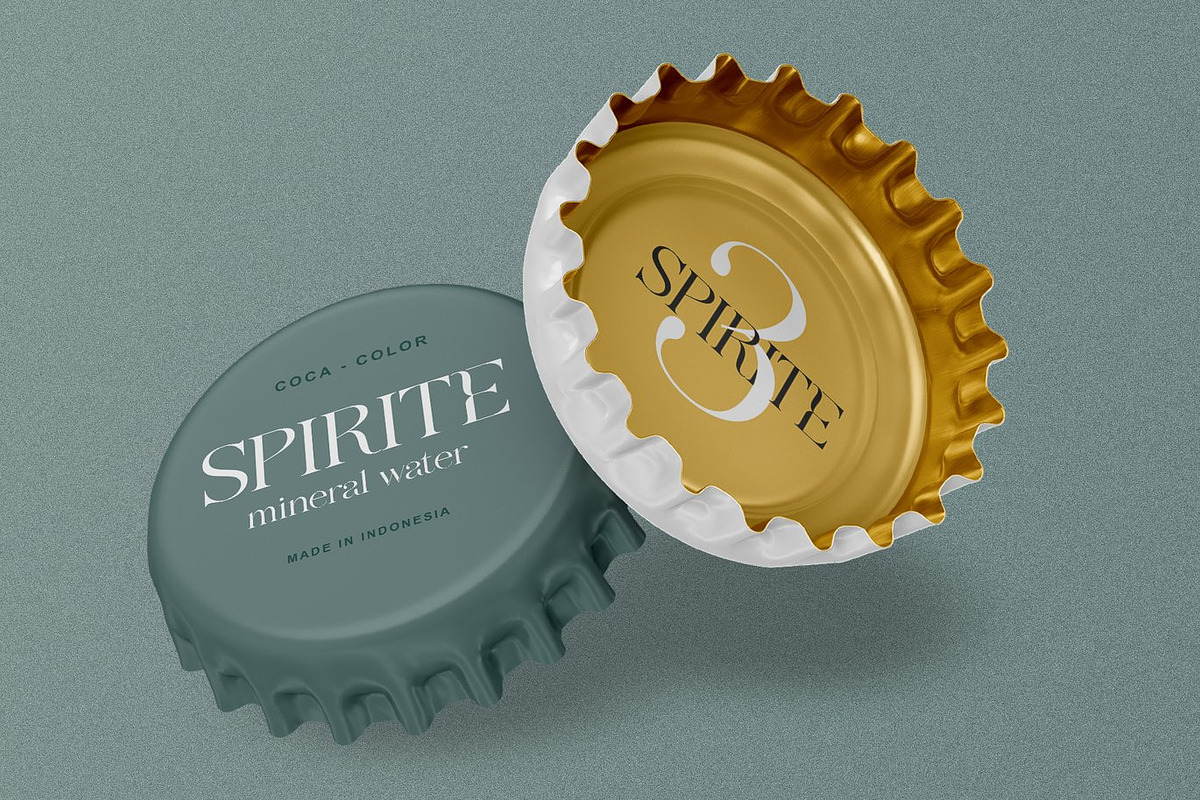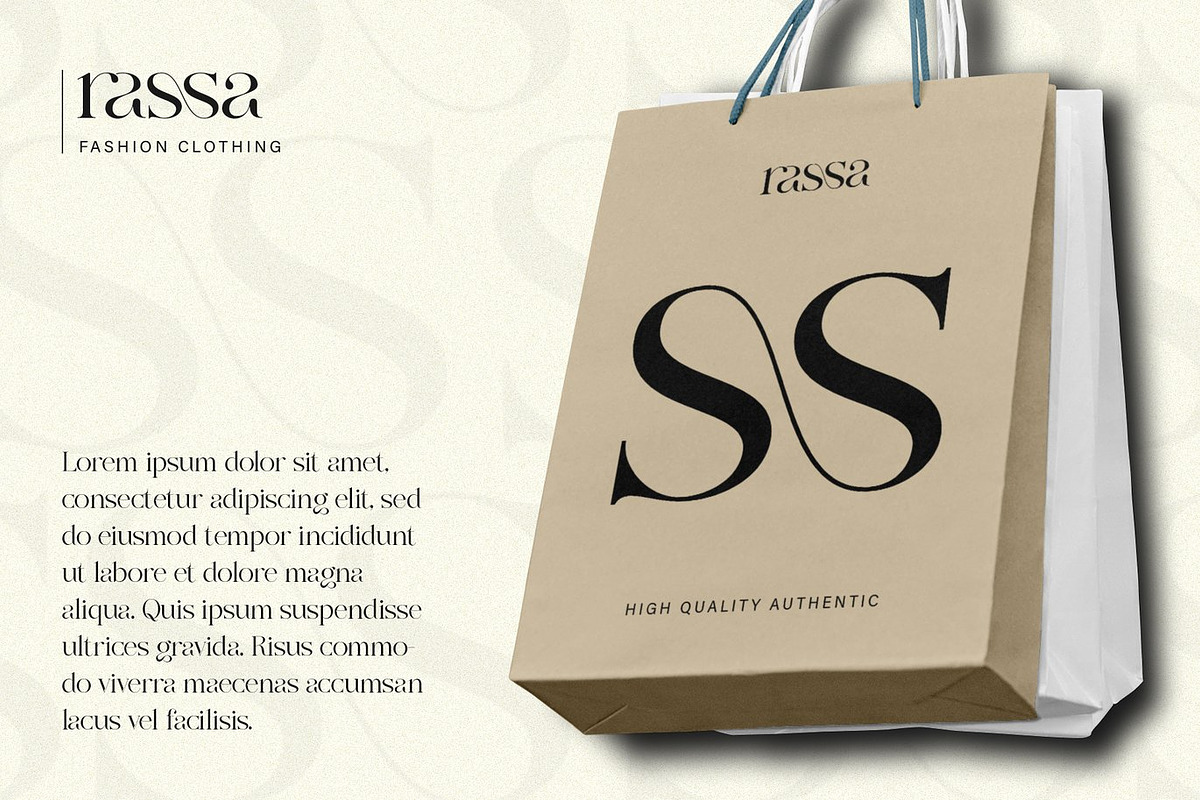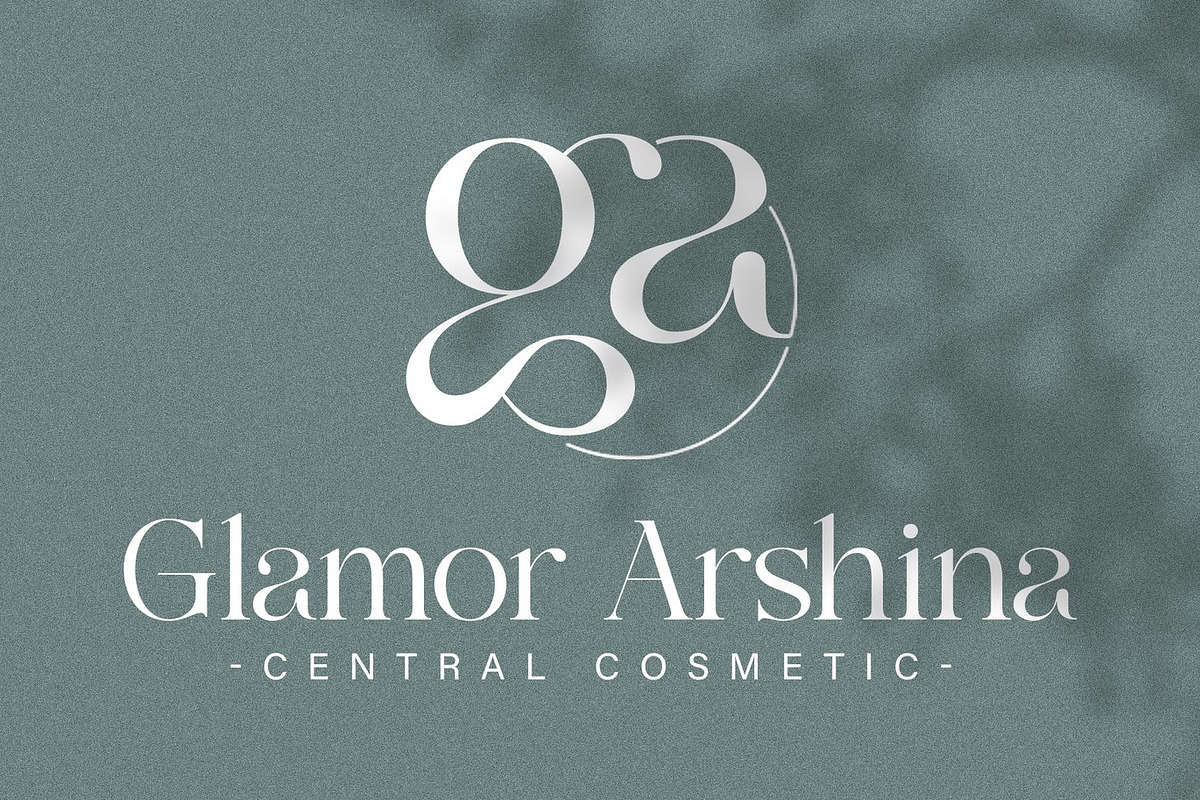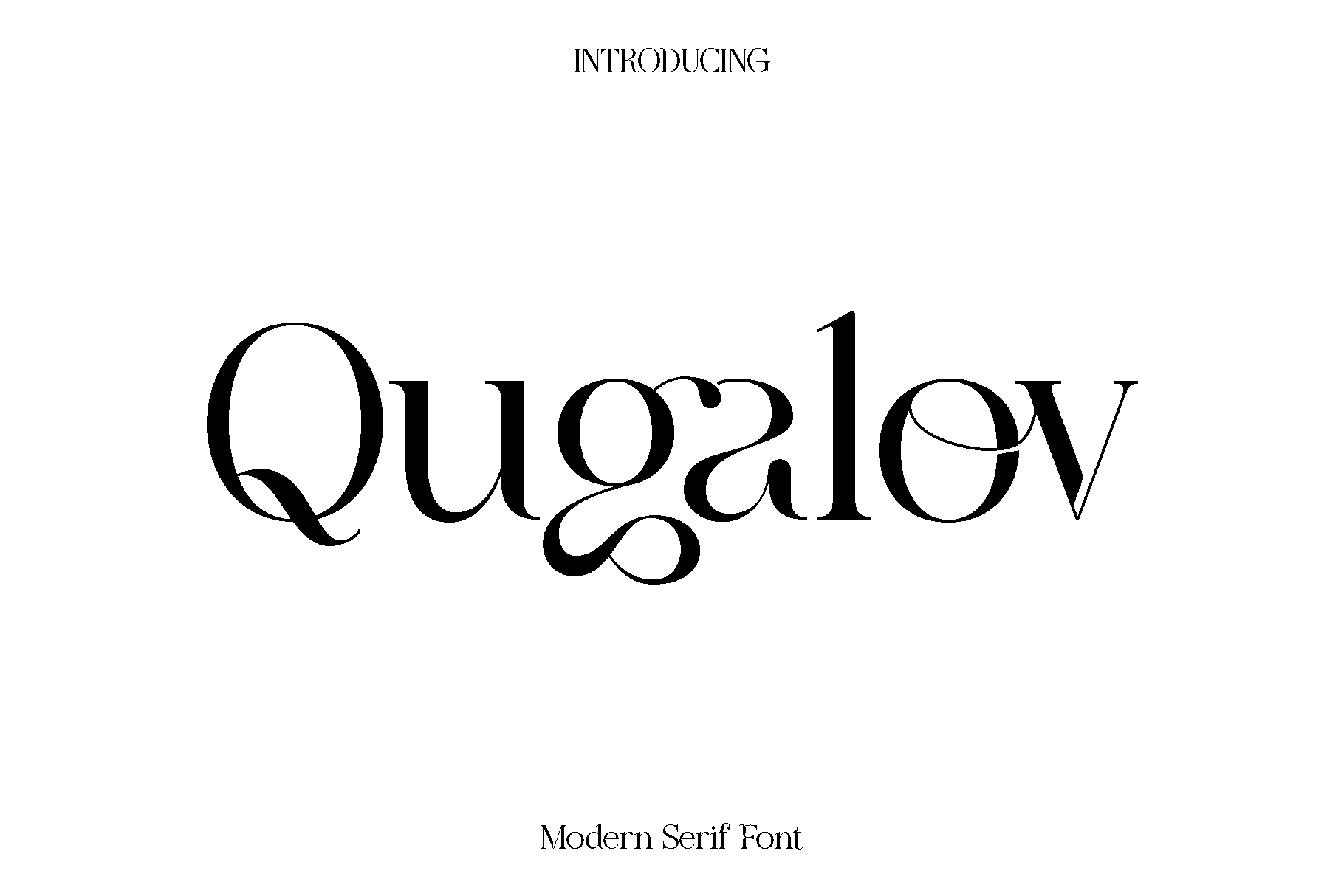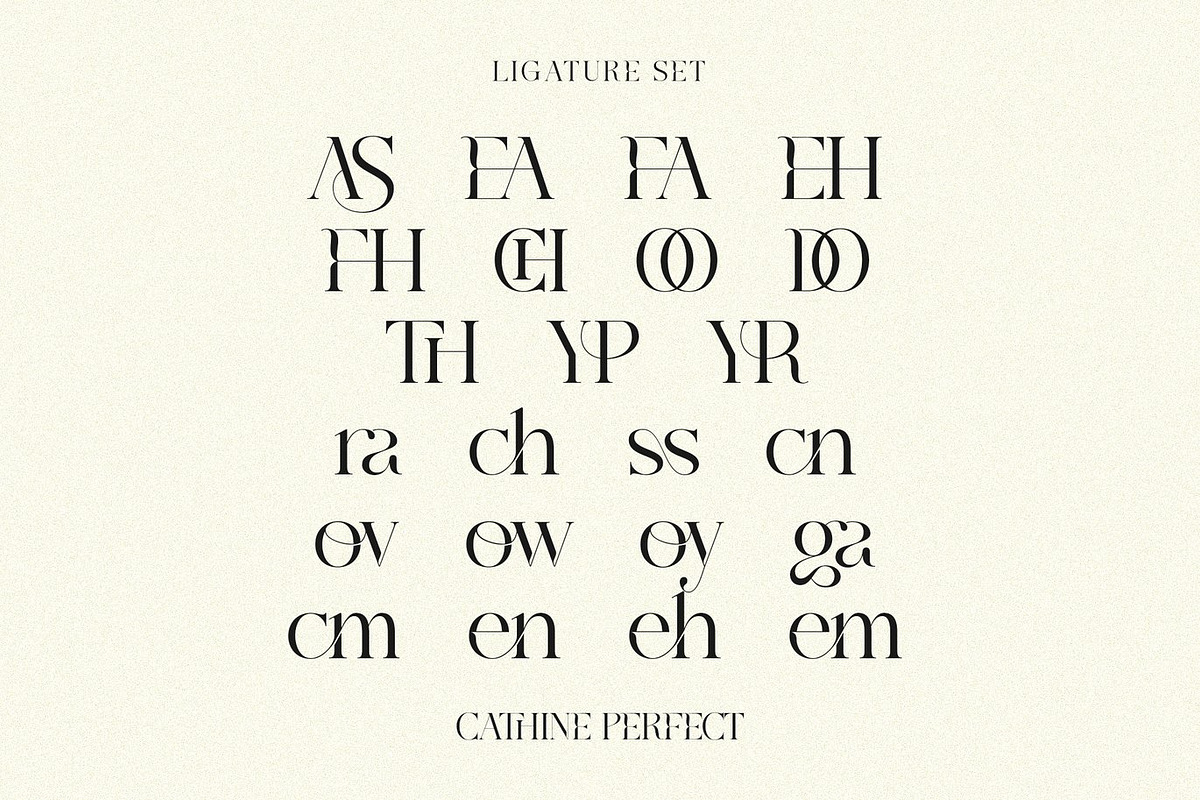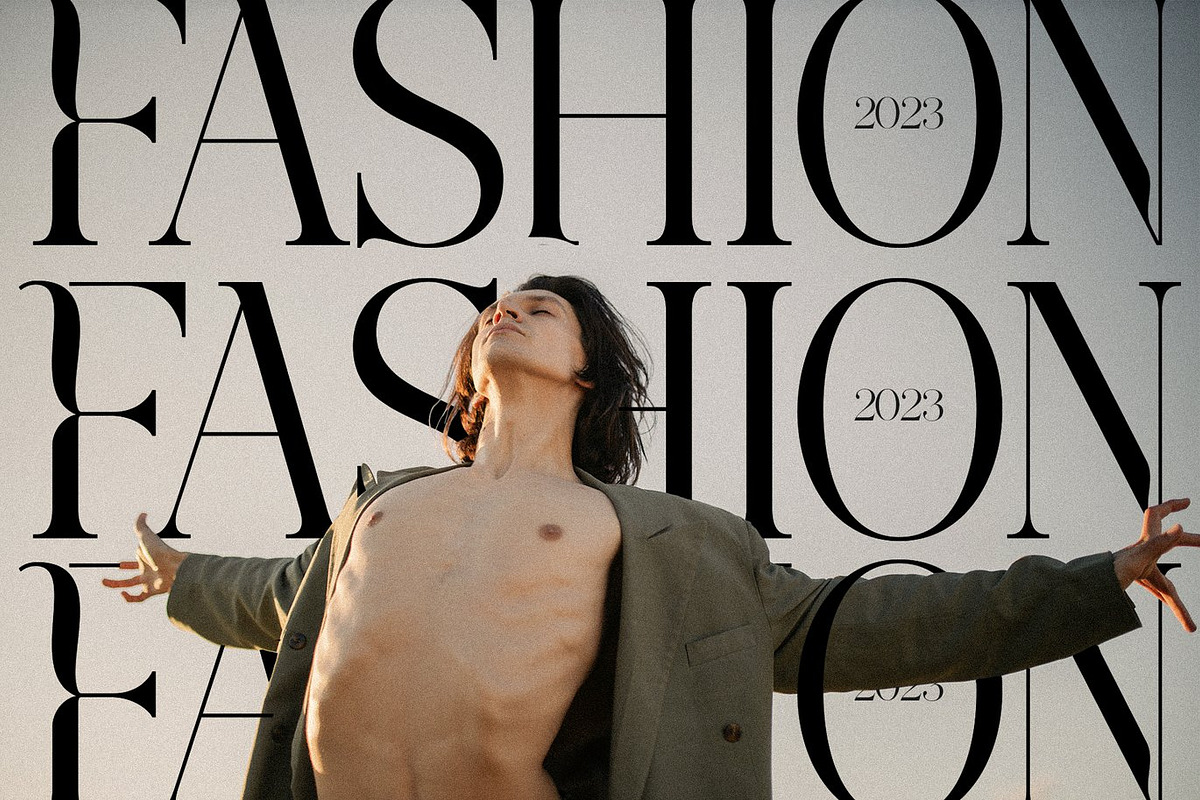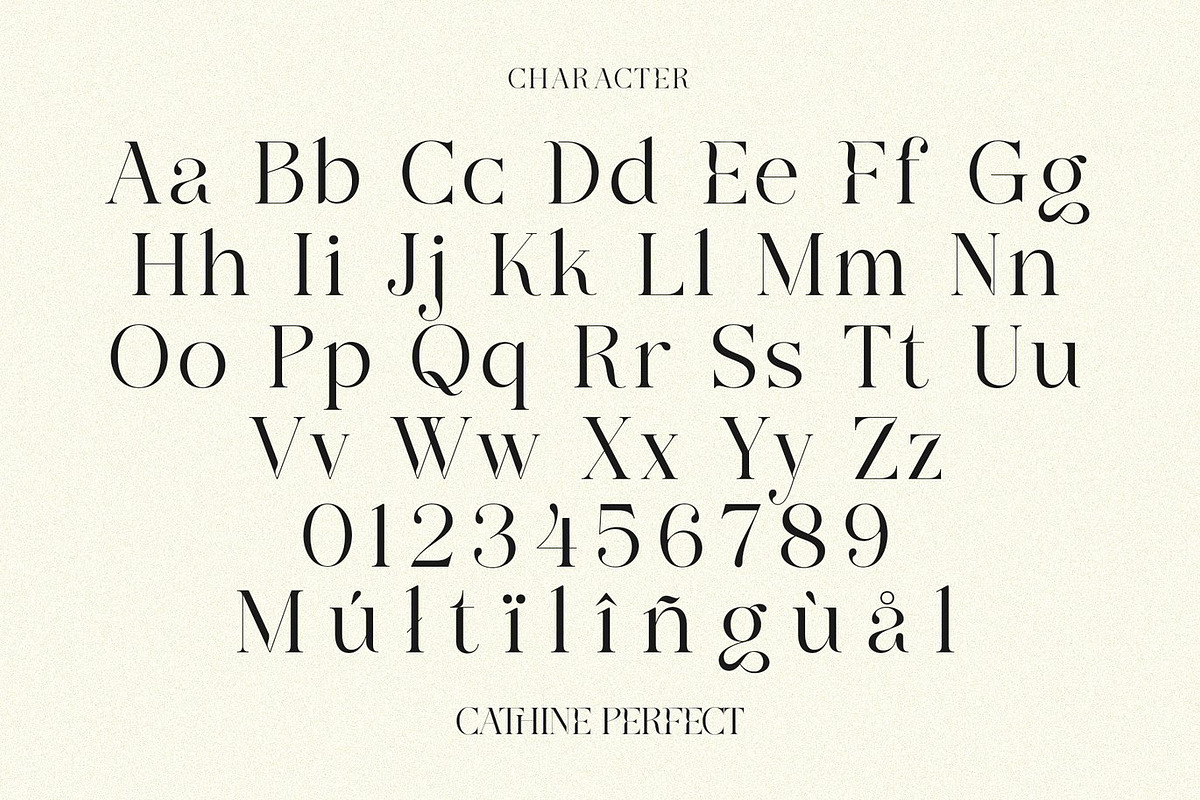
Qugalov Modern Serif Font
Qugalov is a modern typeface designed to bring clarity, style, and versatility to a wide range of creative projects. Crafted with a focus on balance and readability, Qugalov blends contemporary aesthetics with a clean and functional structure. Its carefully shaped letterforms create a smooth visual rhythm, giving your typography a confident and polished appearance that works beautifully across different design styles.
The font feels modern, approachable, and adaptable, making it an excellent choice for designers who need a reliable typeface for both expressive and professional work. Qugalov shines in book layouts, magazine design, branding, logos, photography overlays, blog headers, quotes, posters, and advertising materials. Whether used for bold headlines or supporting text, it maintains strong legibility while adding a refined visual character.
Qugalov was created to be a dependable design companion that enhances creativity without overpowering your composition. Its simplicity allows it to integrate seamlessly into minimal, editorial, and contemporary themes, while its personality ensures your work still feels distinctive and engaging. With Qugalov, your designs gain a clean, modern voice that communicates clearly and effectively across print and digital media.
Qugalov Font Features:
• Uppercase and lowercase characters
• Numerals and functional symbols
• Multilingual support
• Clean and readable letterforms